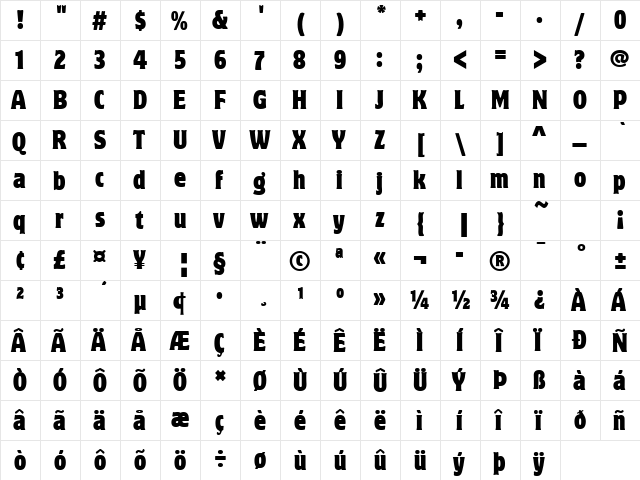
Motter Corpus Cond ITC TT Regular
Design Context for Motter Corpus Cond ITC TT Typeface
Motter Corpus Cond ITC TT offers clean, dependable letterforms without strong stylistic allegiance, making it a practical choice for designers who need flexibility. Its narrow stance lets it pack a punch even in space-constrained designs.
Pro Tip: Use Motter Corpus Cond ITC TT in both headline and body roles to test its range before committing to a single application.